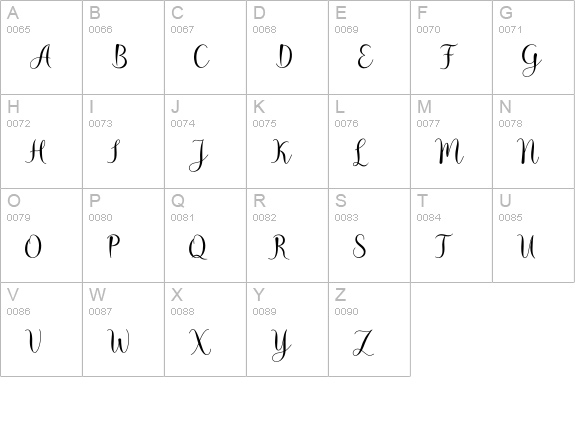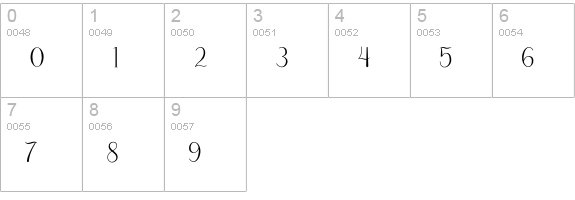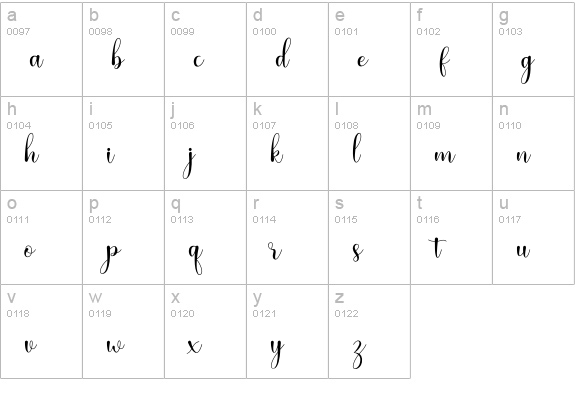
Nattalia Font Details
Nattalia font is a stunning and elegant typeface that exudes sophistication and charm. With its graceful curves and stylish serifs, Nattalia is perfect for adding a touch of class to any project. This versatile font is ideal for a wide range of design applications, from branding and packaging to invitations and social media graphics.